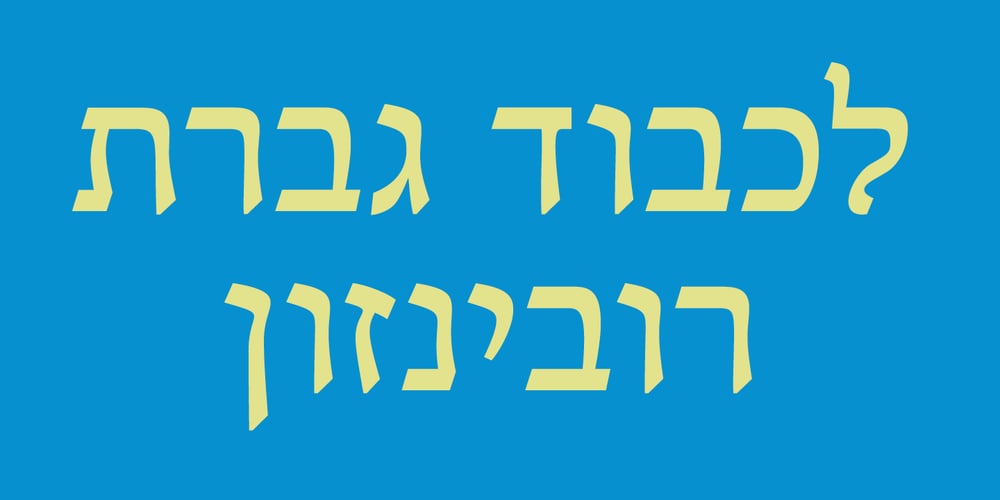
Yosef MF Font Family was designed by Michael Gornstein and published by Masterfont. Yosef MF contains 4 styles and family package options. Inspired by old scribes, this font is unique by its flow and contrast, enabling traditional typeface gain a new and clear flow and rhythm.